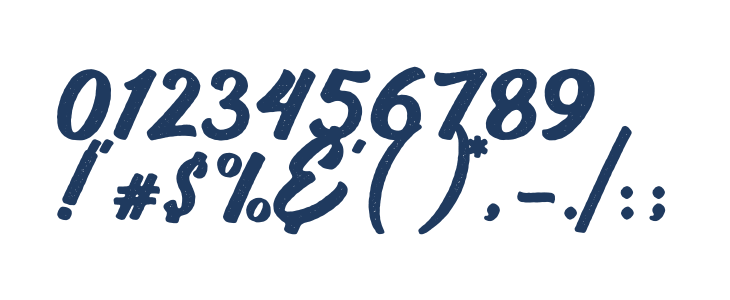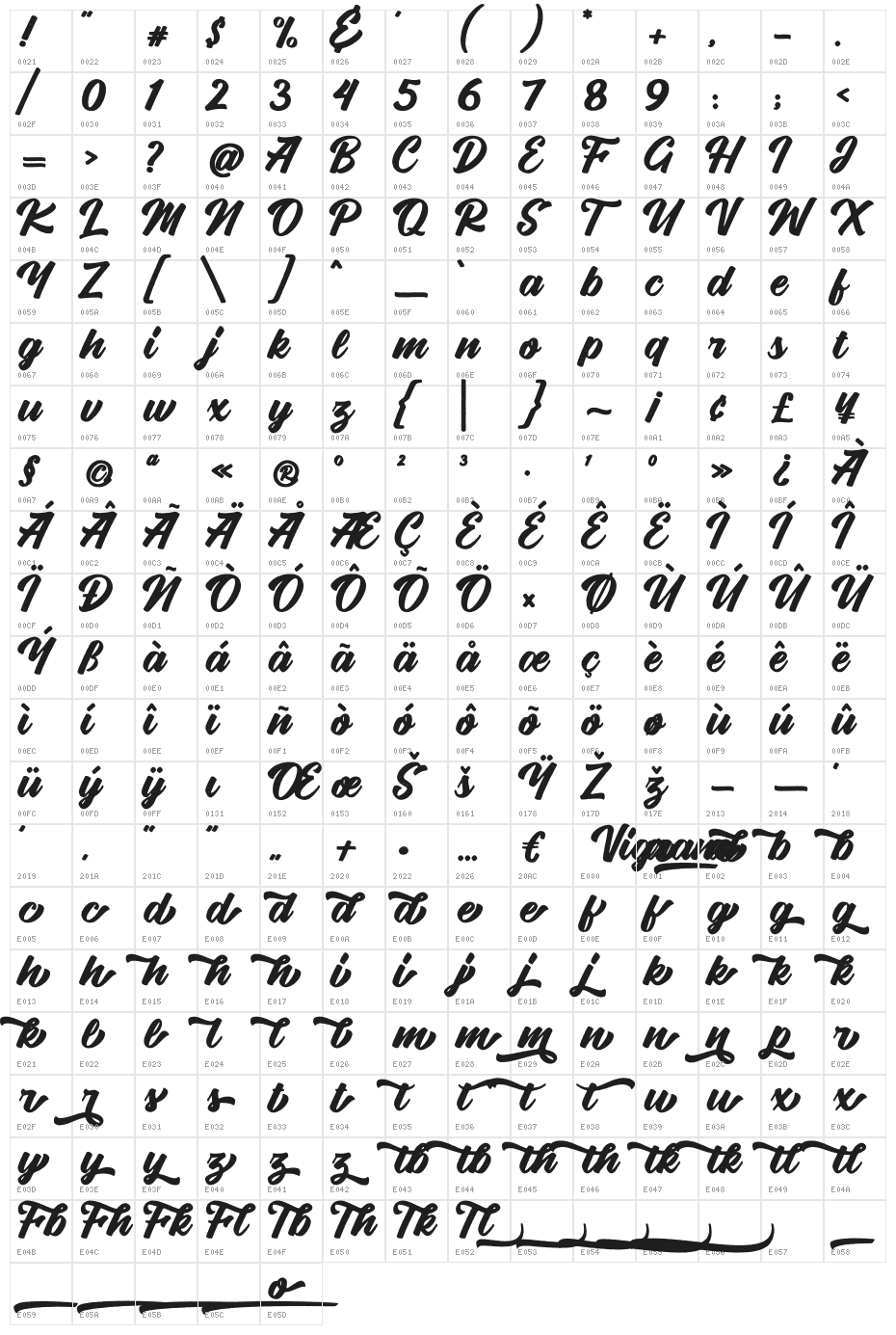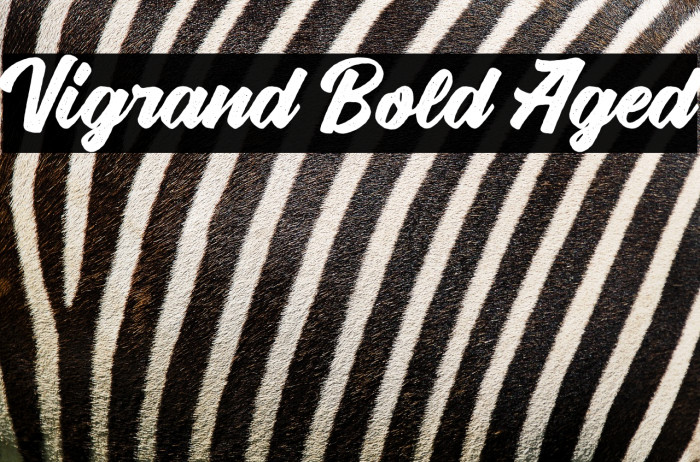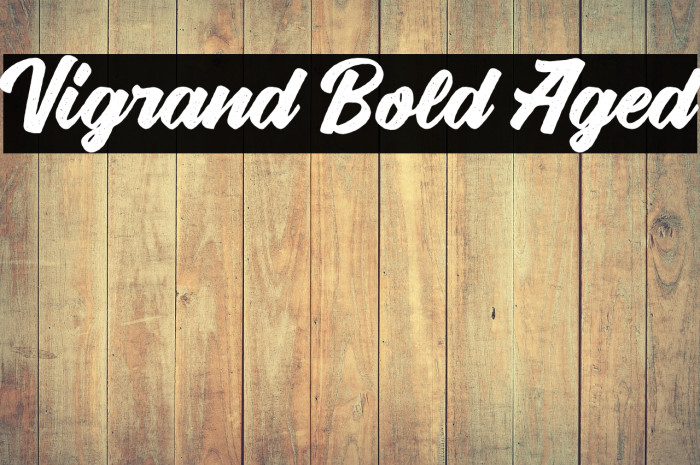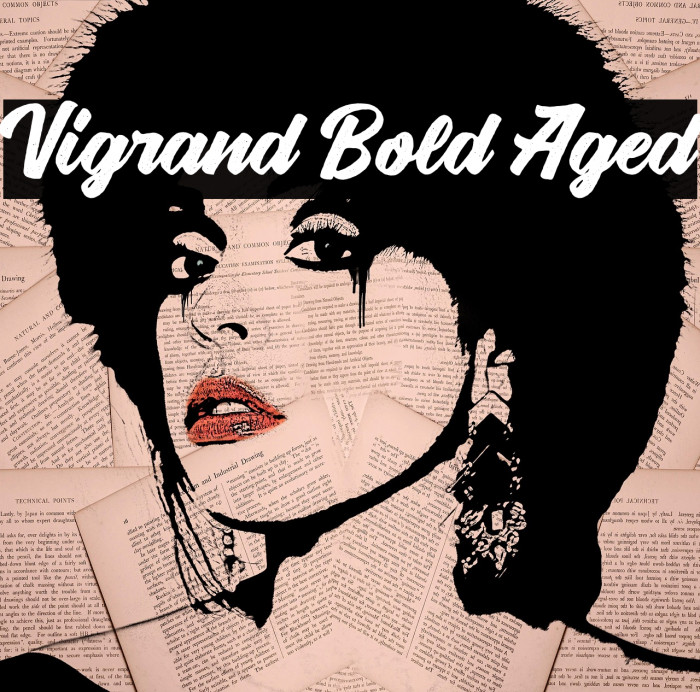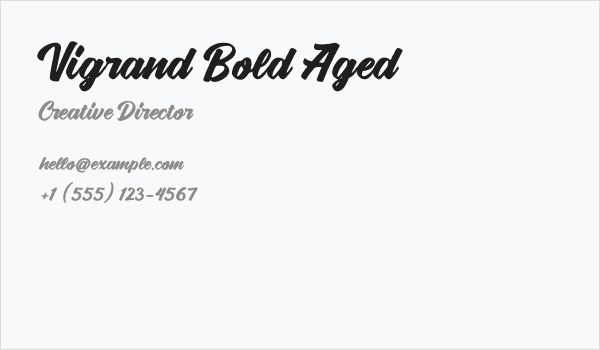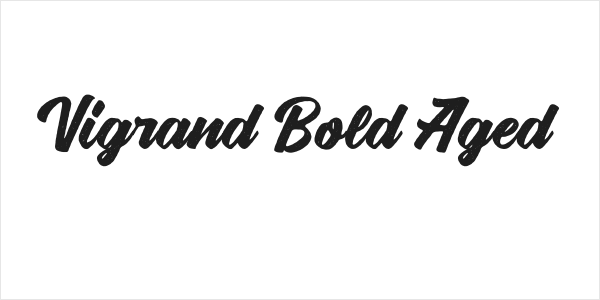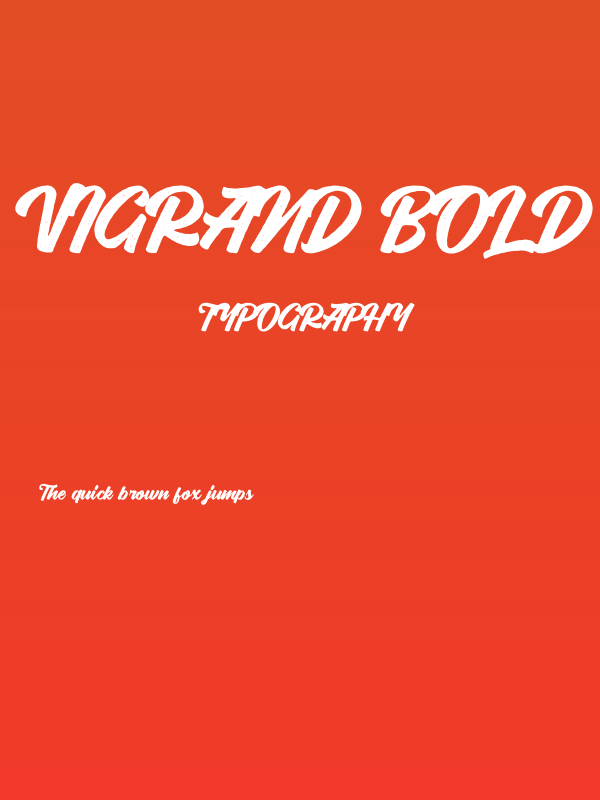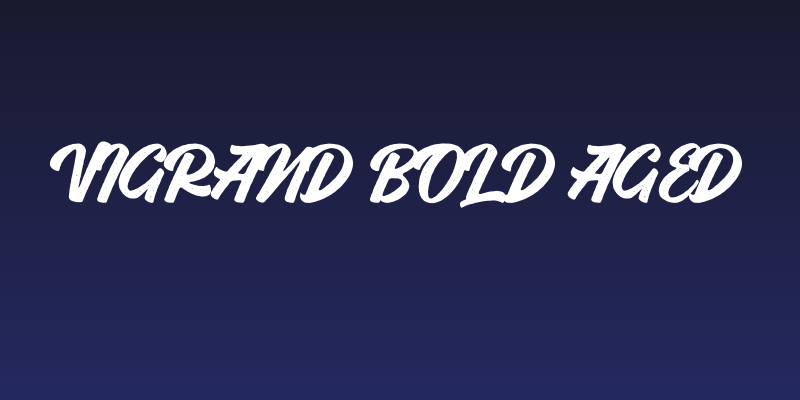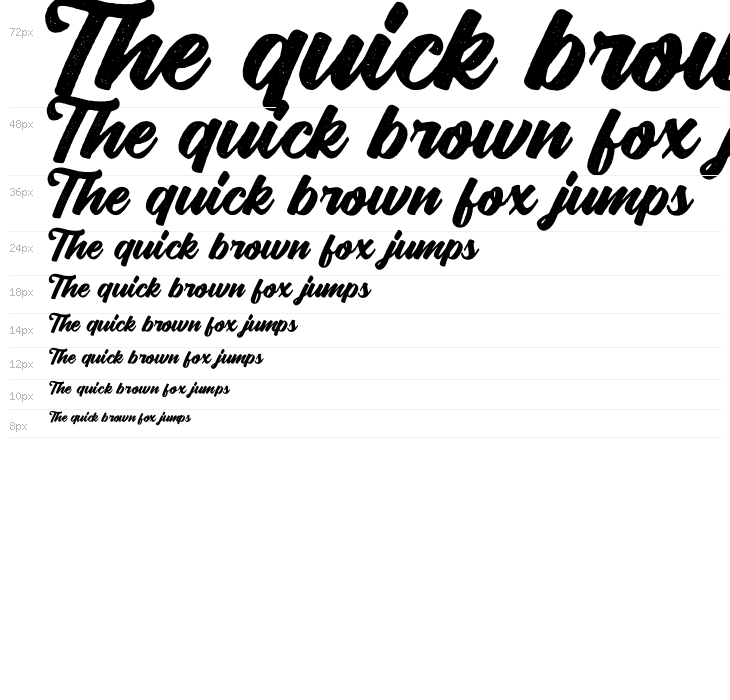
Vigrand Bold Aged Font
Vigrand Bold Aged Description
This font features a bold, script style with a vintage, aged texture that gives it a unique, handcrafted appearance. The letters are connected in a flowing manner, reminiscent of traditional calligraphy, yet with a modern twist. The bold weight and textured finish add character and depth, making it stand out in any design. The uppercase and lowercase letters maintain a consistent style, with rounded edges and a slightly slanted orientation, enhancing its dynamic look. The numerals and special characters are equally bold and textured, ensuring a cohesive appearance across all elements.